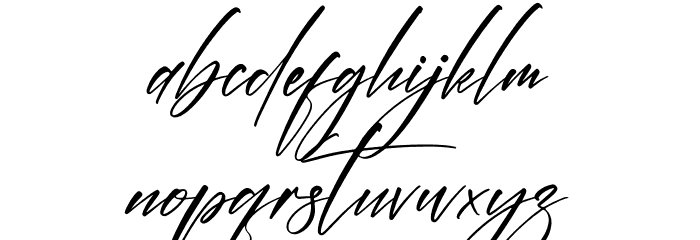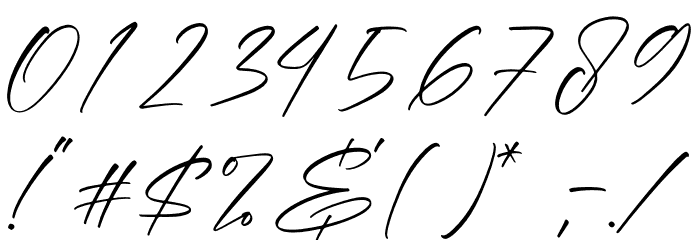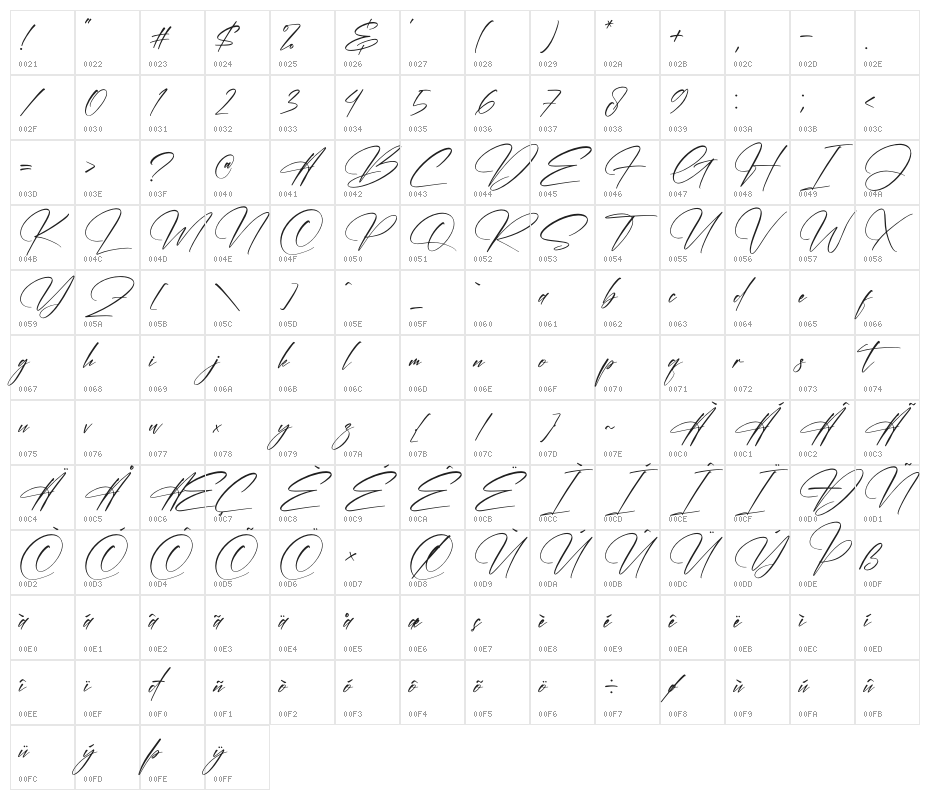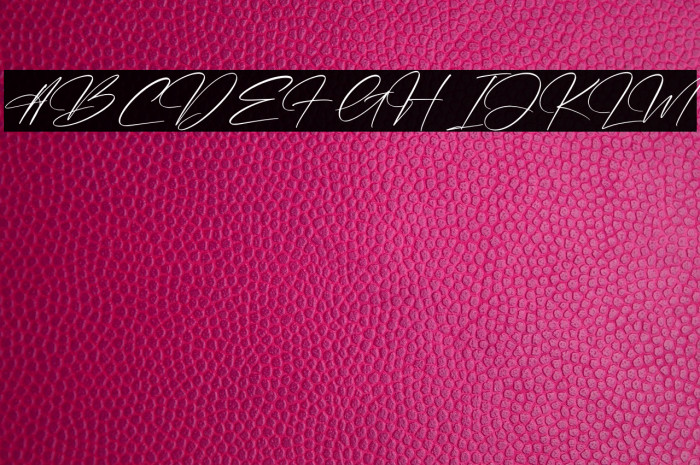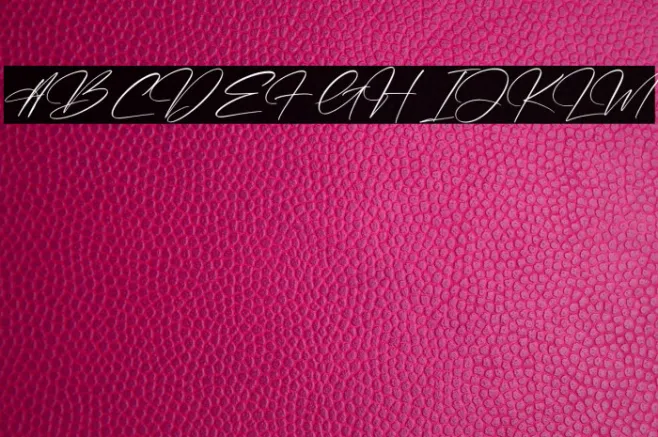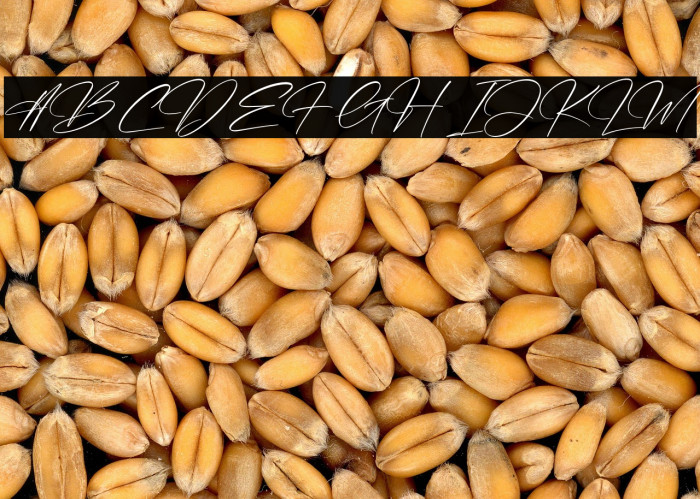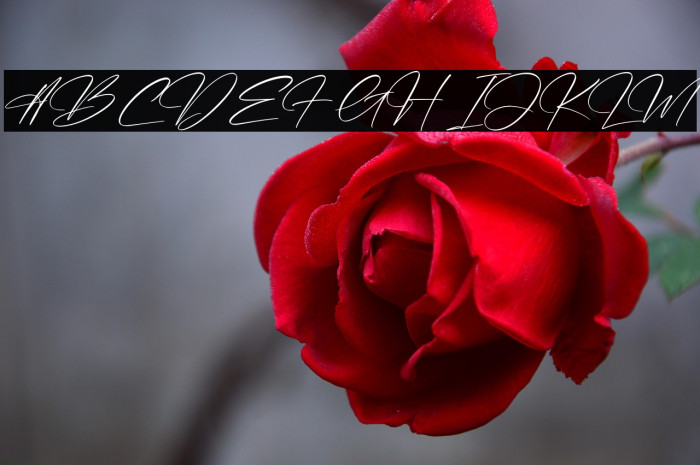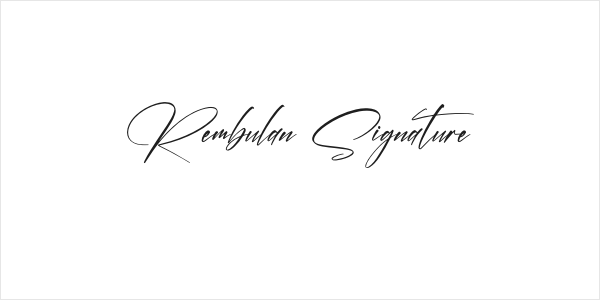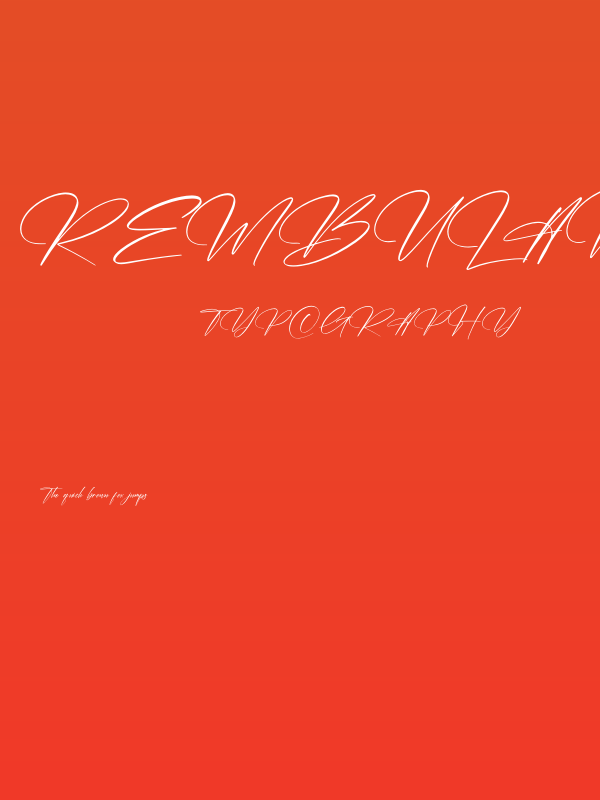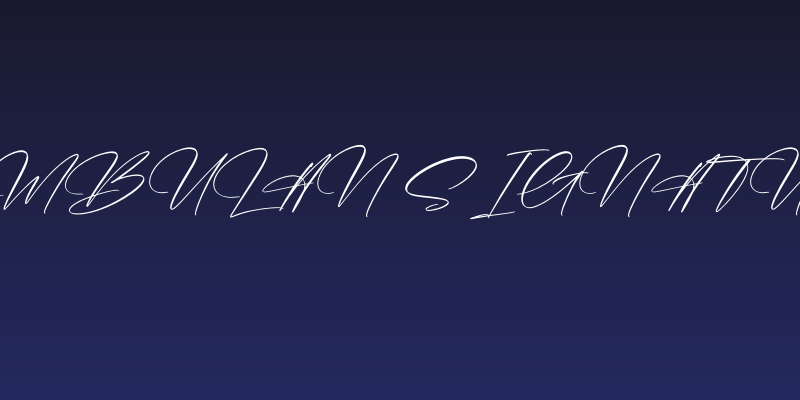
Rembulan Signature Font
This elegant script font features a flowing, cursive style with a modern twist. The characters are interconnected with smooth, sweeping lines that give it a handwritten appearance. The uppercase letters are slightly more elaborate, with extended strokes and loops, while the lowercase letters maintain a consistent fluidity. The numerals and special characters are designed to match the overall aesthetic, ensuring a cohesive look. This font exudes sophistication and charm, making it ideal for projects that require a personal touch.
A modern, elegant script font with a handwritten style.
- Font: Rembulan Signature
- Proposed Projects: Ideal for wedding invitations, greeting cards, branding, and logo design.
- Category: Script
- Use Case: Logos, Invitations, Branding